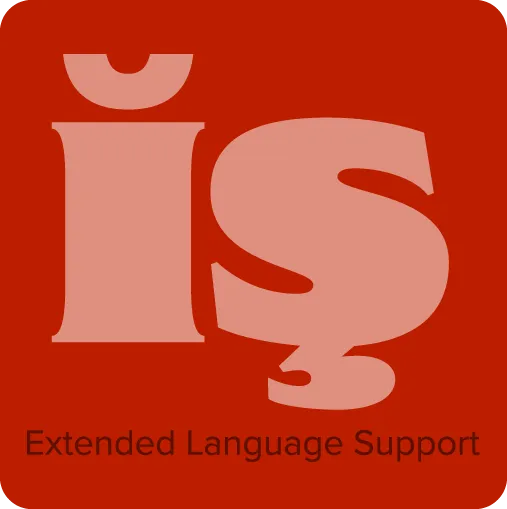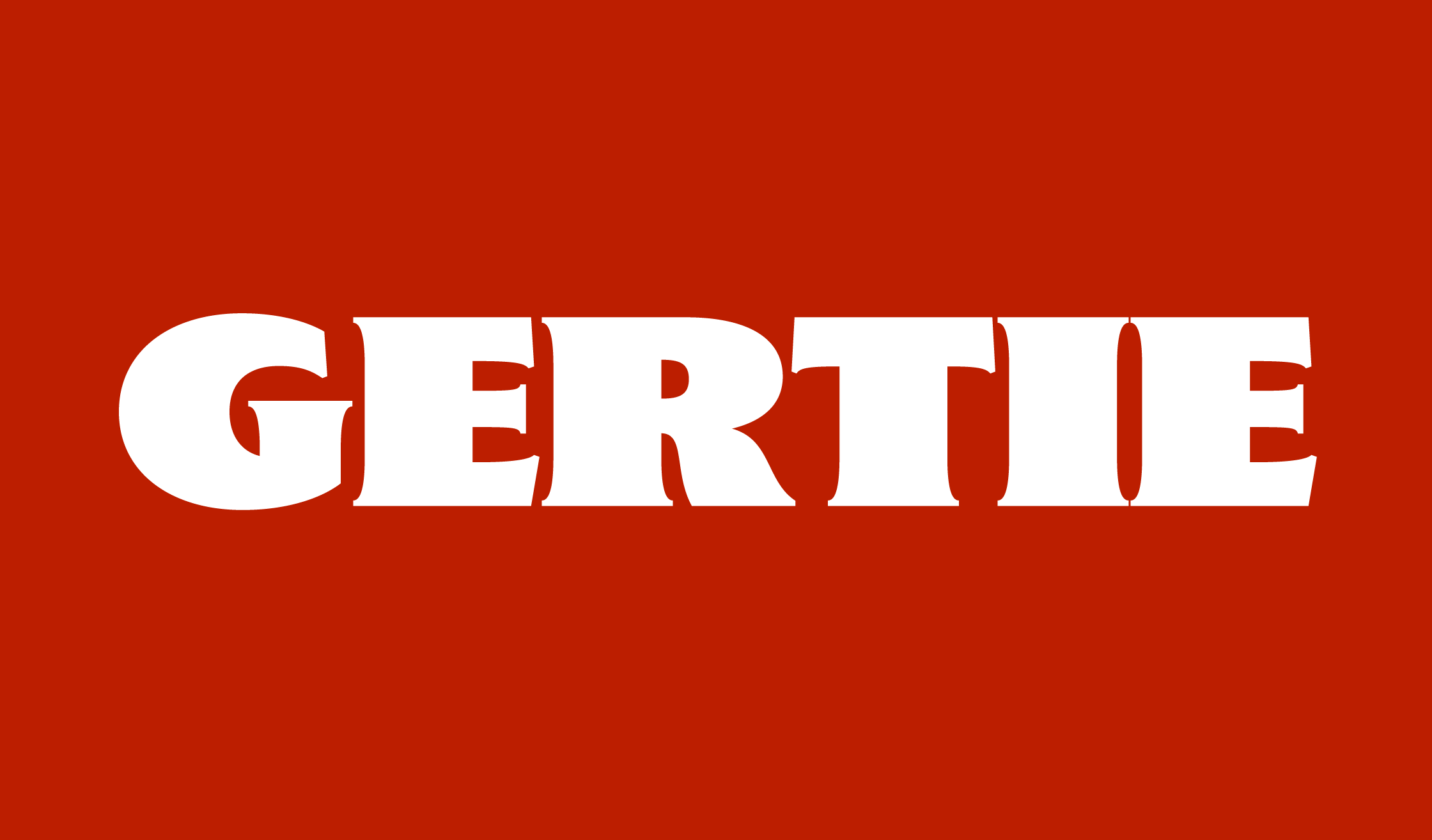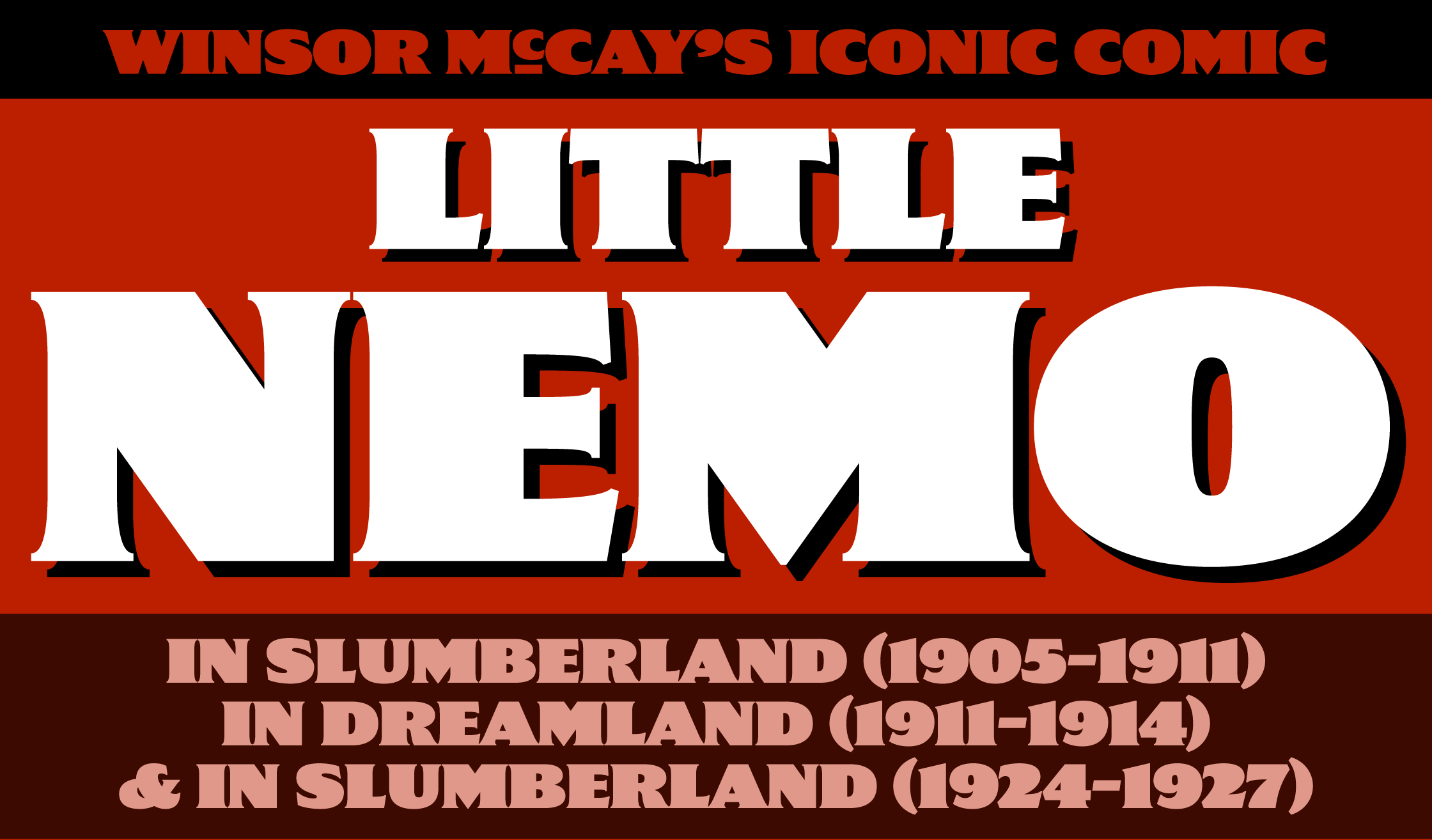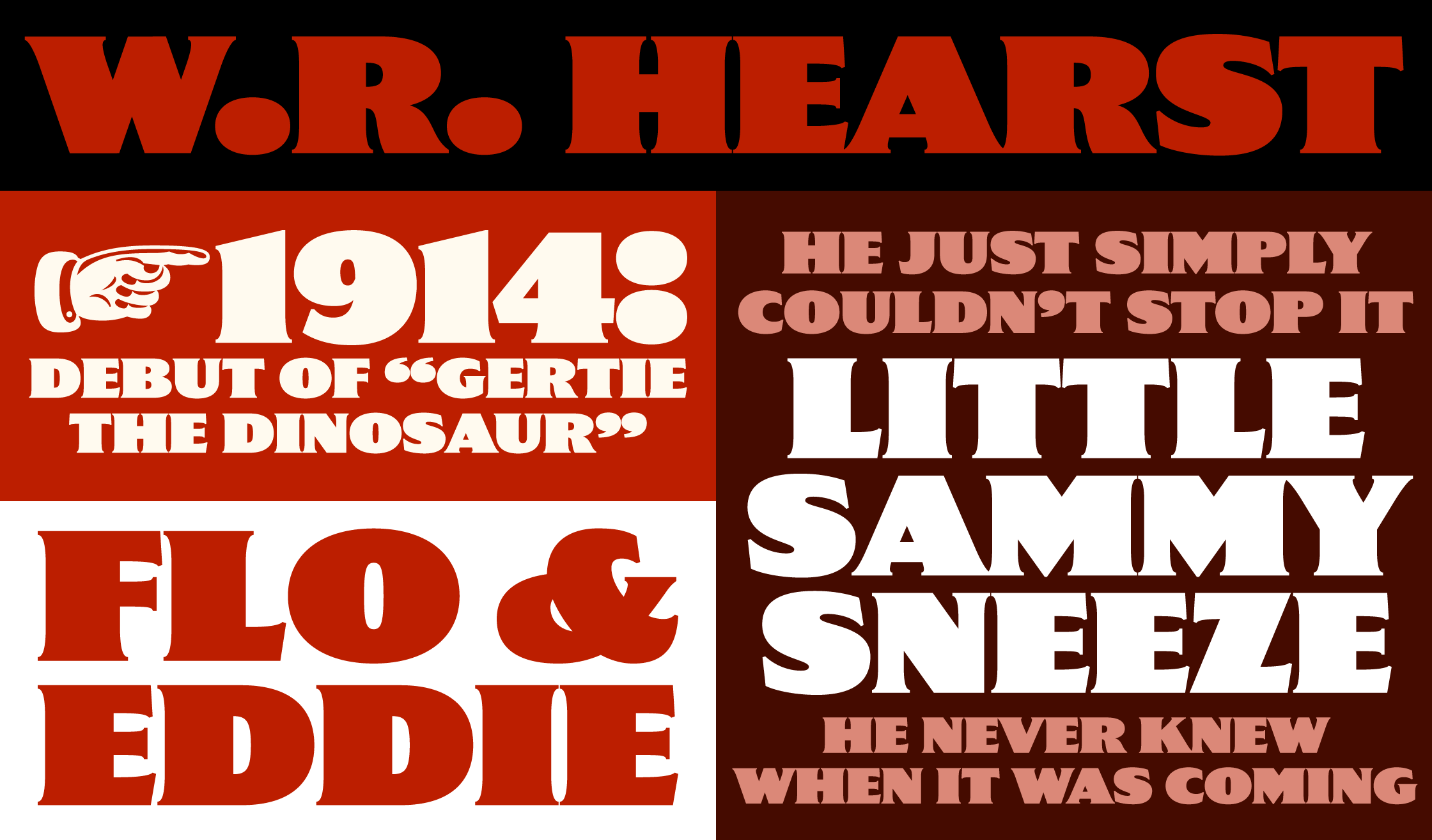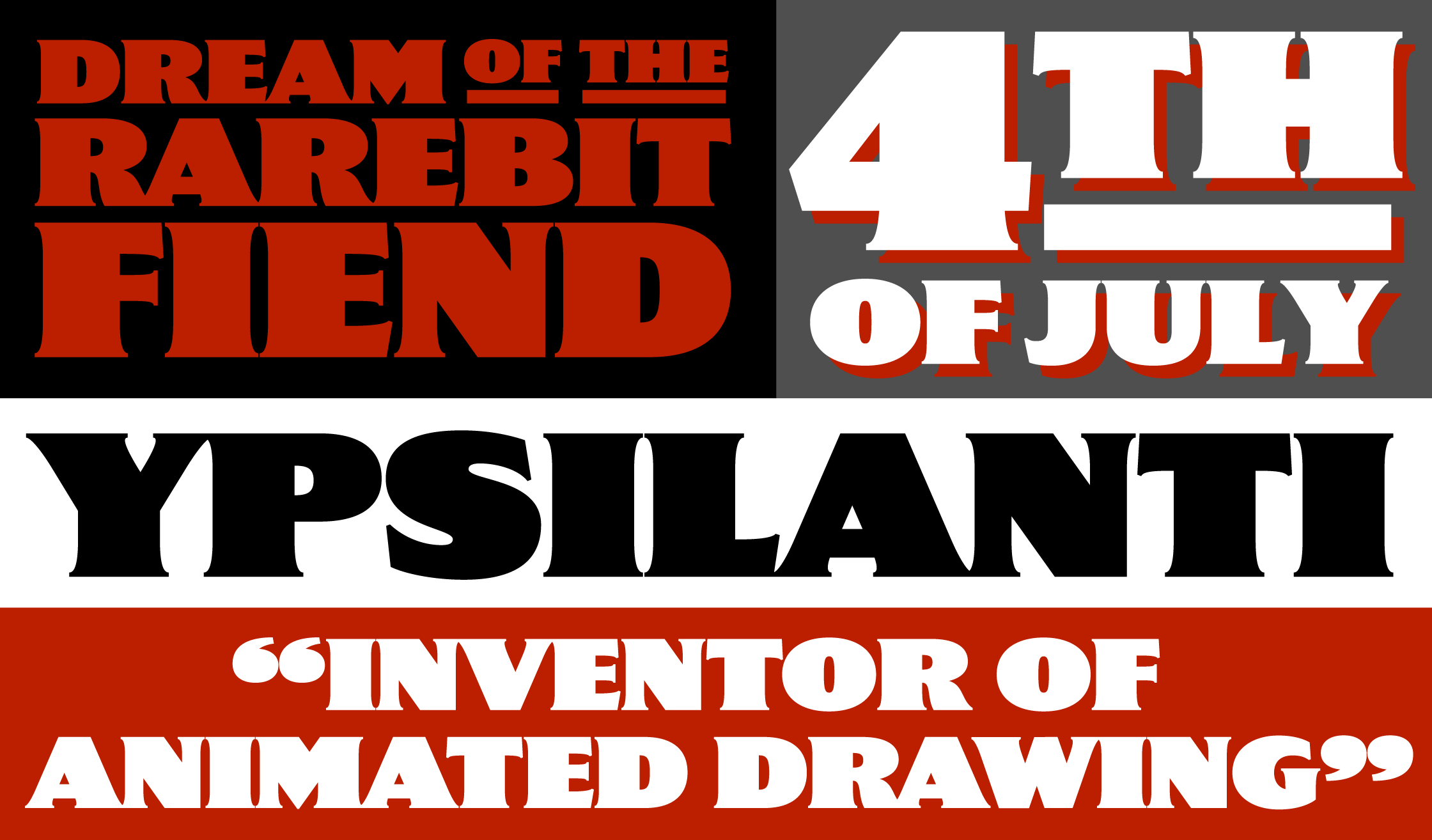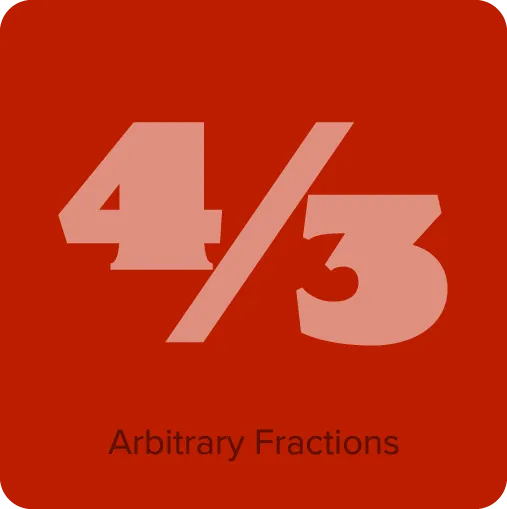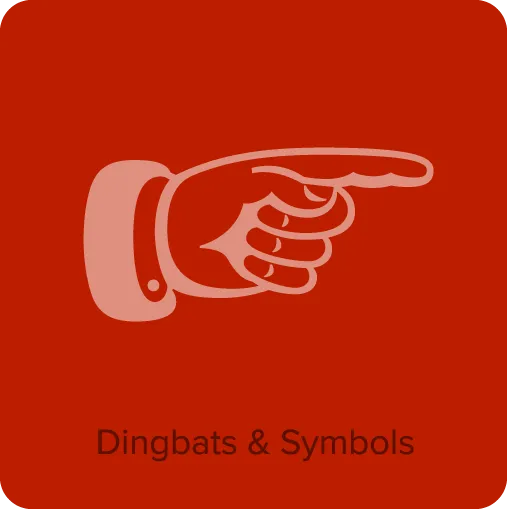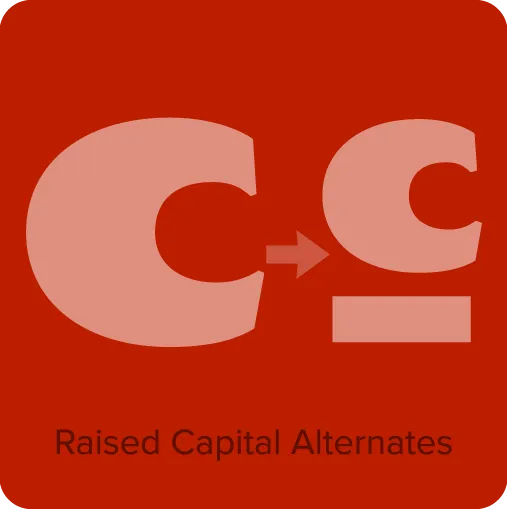
Gertie (2024) was inspired by the lettering of comic artist and animation pioneer Winsor McCay — specifically the title lettering in his “Little Nemo” comic strip, which ran in Sunday newspapers from 1905–1927. The name comes from his 1914 animated short, “Gertie the Dinosaur,” which is considered the first to portray a character with personality. Gertie (the font) is an ultra-bold all-caps spur-serif design for display use with an early 20th-century feel and includes a set of matching dingbats.
A wisecracking jackalope on a freight vexed by Moz’s bequest.
Gertie Features
- Dingbats & symbols.
- Raised capital alternates.*
- Arbitrary fractions.*
- Extended language support for most Latin-based Western and Central European languages.